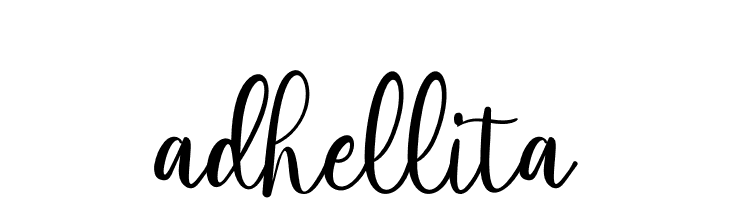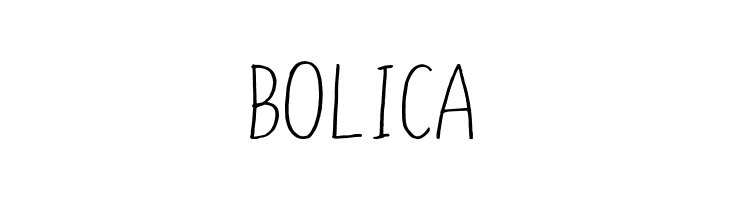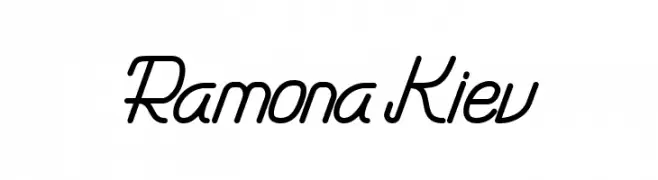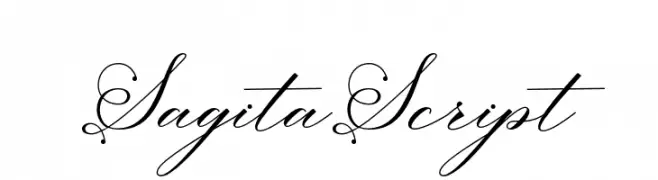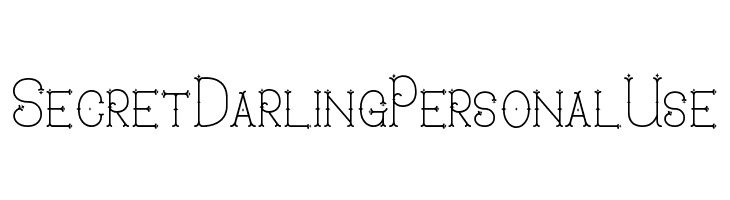
A sharp, thorny font with a dramatic and edgy appearance.
A dynamic and elegant script font with flowing, cursive letterforms.
A lively and flowing script font with elegant, cursive letterforms.
An elegant script font with flowing, interconnected letters and classic calligraphic style.
An elegant script font with intricate curls and flowing lines.
A playful, handwritten font with tall, narrow letters and a casual style.
A geometric font with characters enclosed in hexagons, offering a modern and bold look.
A bold, playful font with rounded strokes and a graffiti-like style.
A smooth, flowing script font with interconnected characters and elegant flourishes.
A decorative font with intricate arrow-like details and slender, uniform strokes.